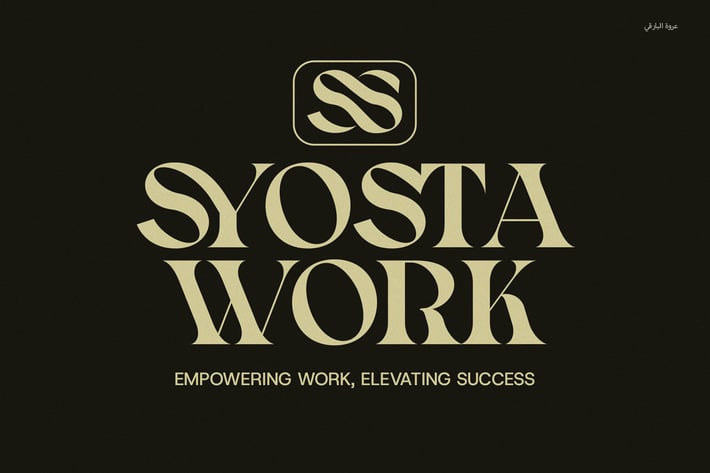
Syosta Work Display Serif Font
Syosta Work Display Serif Font is a modern, refined typeface designed to bring elegance and sophistication to any project. With its beautifully crafted serifs and a range of unique ligatures and alternate forms, this font offers a distinctive character that stands out in both digital and print mediums. Whether you're working on high-end branding, eye-catching logos, or visually stunning magazines, Syosta Work provides the versatility you need to elevate your designs.
Perfect for a wide range of applications, Syosta Work shines in boutique branding, advertising campaigns, product packaging, and website layouts, where style and readability are key. Its clean yet artistic design makes it an excellent choice for everything from luxury brands to creative ventures, offering the right balance of contemporary flair and classic charm.
The font's alternate characters and ligatures allow for a personalized touch, ensuring that every piece of text feels unique and tailored. Whether you're designing for fashion, food, or any other industry, Syosta Work will give your projects a refined and polished look that catches the eye.
Embrace the modern sophistication of Syosta Work Display Serif Font and make your next design unforgettable. With its elegant curves, carefully considered details, and adaptability across various media, it's the perfect typeface for anyone looking to create a memorable and impactful visual identity.
Perfect for a wide range of applications, Syosta Work shines in boutique branding, advertising campaigns, product packaging, and website layouts, where style and readability are key. Its clean yet artistic design makes it an excellent choice for everything from luxury brands to creative ventures, offering the right balance of contemporary flair and classic charm.
The font's alternate characters and ligatures allow for a personalized touch, ensuring that every piece of text feels unique and tailored. Whether you're designing for fashion, food, or any other industry, Syosta Work will give your projects a refined and polished look that catches the eye.
Embrace the modern sophistication of Syosta Work Display Serif Font and make your next design unforgettable. With its elegant curves, carefully considered details, and adaptability across various media, it's the perfect typeface for anyone looking to create a memorable and impactful visual identity.